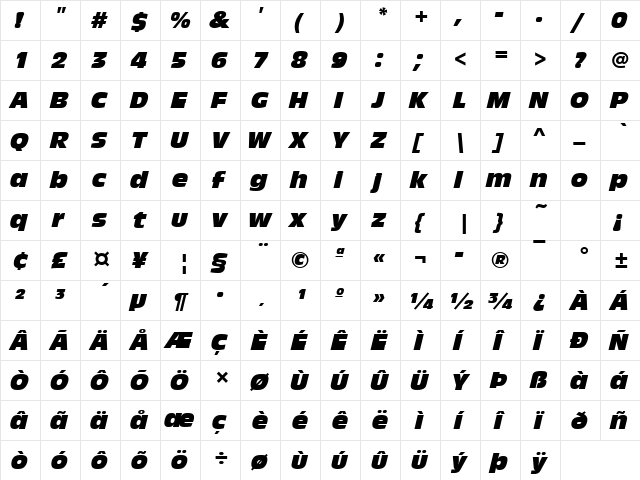
AntiqueOliTCom Italic Font Preview
AntiqueOliTCom Italic
Design Context for AntiqueOliTCom Typeface
AntiqueOliTCom has the warm character of retro typography — evoking diners, record sleeves, and the golden age of print advertising. The slanted form adds forward momentum and visual energy.
Perfect for vintage-inspired branding, retro packaging, nostalgia campaigns, and period-accurate editorial design.
Font Pairing: Combine AntiqueOliTCom with a simple slab or neutral sans — period-accurate companions reinforce the vintage feel without competing for attention.
Pro Tip: Use AntiqueOliTCom for headlines and pull quotes rather than body copy — its personality is best appreciated in short, focused bursts.